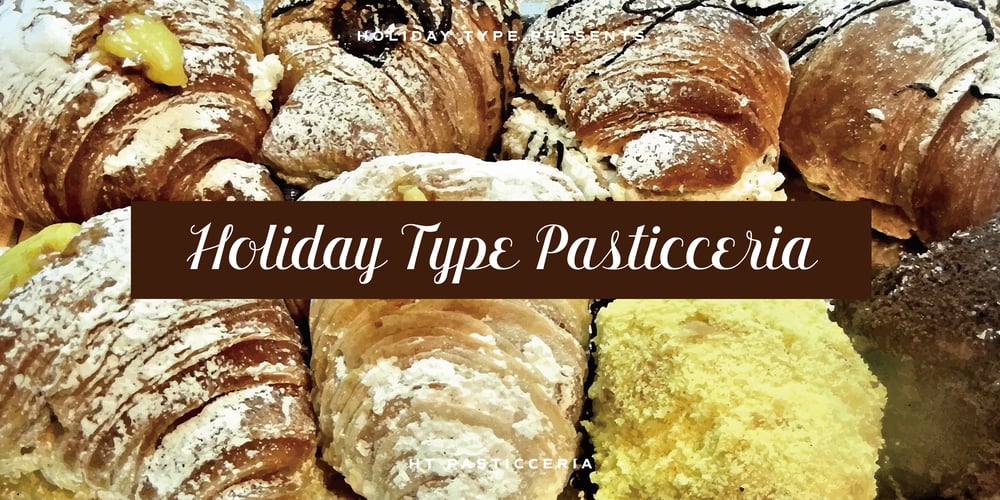
HT Pasticceria Font Family was designed by Ryoichi Tsunekawa and published by Dharma Type. HT Pasticceria contains 1 styles and family package options. HT Pasticceria is extremely eye-catching and high-contrast font. It is a chic typeface with a?sweet?and?perhaps?girly touch. HT Pasticceria is great for use in all kinds of display typography. Holiday Type Project offers retro hand drawing scripts. Inspired by retro script on shopfront lettering, wall paint advertisements in Italy around 1950s. Check out the script fonts from Holiday Type!